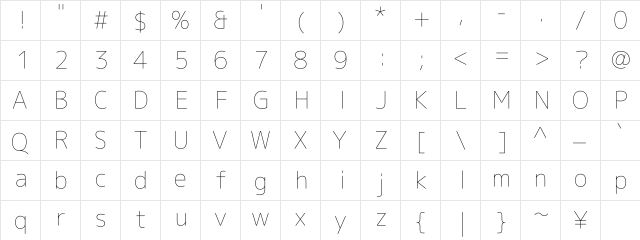
M+ 1c thin
Design Context for M+ 1c Typeface
M+ 1c offers clean, dependable letterforms without strong stylistic allegiance, making it a practical choice for designers who need flexibility. Its slender proportions lend an understated elegance to any composition.